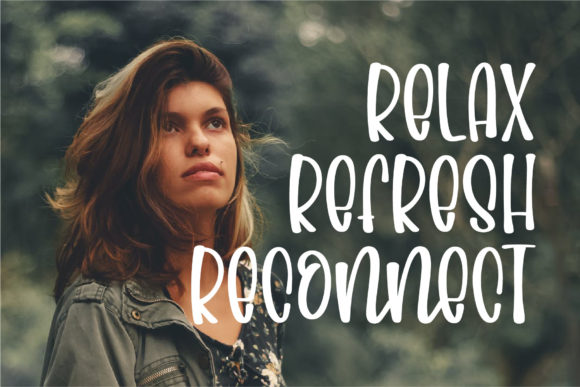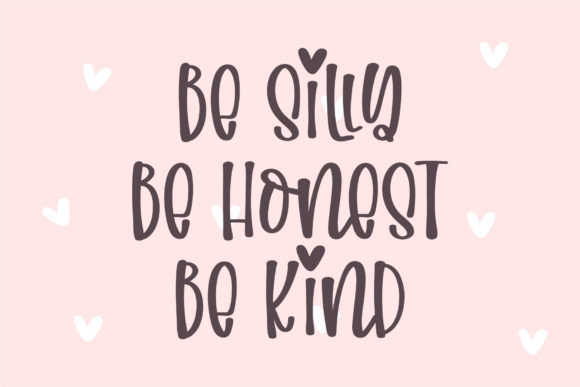
Strawberry Shortcake Font
Strawberry Shortcake is a quirky and relaxed handwritten font. Whatever the topic, this font will be a wonderful asset to your font library, as it has the potential to enhance any creation.